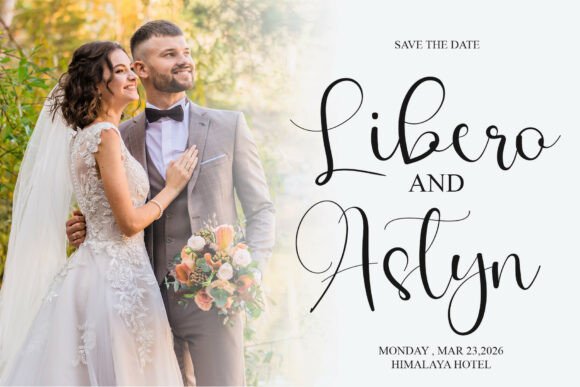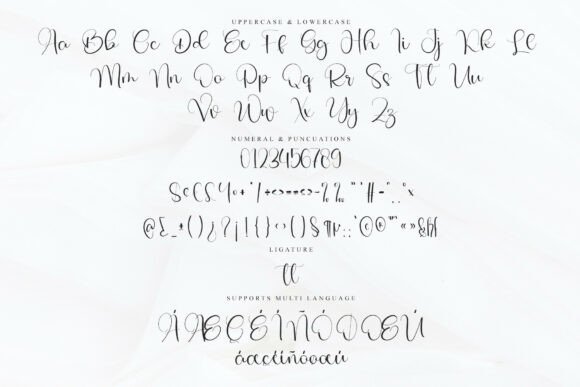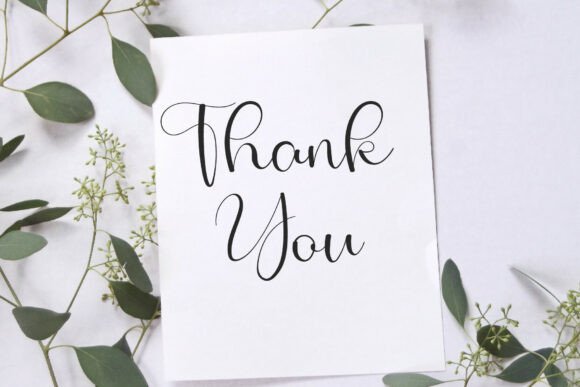
Unleash the Charm of Handwritten Elegance
Remember the feeling of receiving a beautifully handwritten letter from a loved one? The sense of warmth and personality that comes with it is hard to replicate with digital communication. But what if you could capture that same essence in your designs? Enter the Brilliant Farmhouse Font, a sophisticated script handwriting font that brings a touch of elegance and professionalism to your work.
Perfect for lifestyle branding, boutique home decor marketing, and sophisticated digital headers, the Brilliant Farmhouse Font is a valuable asset for designers looking to add a personal and high-end touch to their projects. With its vertically elongated letterforms and smooth character joins, this font is sure to make your designs stand out from the crowd.
Brilliant Farmhouse Font Key Features
- Font Family: Brilliant Farmhouse Font
- Unique Characteristics: Unique, hand-drawn design with a rustic and vintage feel, perfect for farmhouse and country-themed designs
- Number of Glyphs: 200+ glyphs, including standard Latin characters, punctuation, and special characters
Designer Review: Brilliant Farmhouse Font
I recently had the chance to work with the Brilliant Farmhouse Font, and I must say it’s a unique addition to any design project. ✨ The font’s rustic charm and vintage feel can instantly evoke a sense of nostalgia and warmth, making it perfect for farmhouse-themed designs, country-inspired branding, and even rustic wedding invitations.
Here are some of the things that work well with this font:
- ✨ Strong emphasis on hand-drawn feel: The font’s imperfections and subtle variations in letterforms give it a handmade quality that’s perfect for projects that need a personal touch.
- ✨ Versatility: The font can be used for a wide range of projects, from headings to body text, and even as a decorative element.
- ✨ Easy to read: Despite its rustic appearance, the font is surprisingly legible, making it a great choice for projects where clarity is essential.
- ⚠️ Limited font sizes: The font may not be suitable for very small or very large font sizes, as the letterforms can become distorted or difficult to read.
- ⚠️ May not be suitable for formal designs: While the font is perfect for rustic or country-inspired designs, it may not be the best choice for formal or professional projects.
Overall, the Brilliant Farmhouse Font is a great addition to any designer’s toolkit, but it’s essential to use it judiciously and consider the project’s requirements before choosing this font.
Practical Application Guide for Brilliant Farmhouse Font
To get the most out of Brilliant Farmhouse Font, try the following:
- Use the font in combination with distressed textures or watercolor effects for a unique look.
- Pair the font with bold, bright colors to create a striking contrast.
Brilliant Farmhouse Font is perfect for:
- Rustic or vintage-themed designs.
- Country or farmhouse-inspired projects.
- Outdoor or nature-themed designs.
Alternatives to Brilliant Farmhouse Font
Great Vibes Font is a beautiful, modern script font perfect for adding a touch of elegance to your designs. It’s ideal for use in branding, invitations, and other creative projects where a unique and eye-catching font is needed.
Compared to Brilliant Farmhouse Font, Great Vibes Font has a more refined and sophisticated look, making it a great choice for high-end designs. While Brilliant Farmhouse Font has a more rustic and homespun feel, Great Vibes Font is more versatile and can be used in a wider range of contexts.
Lato Font is a clean and modern sans-serif font that’s perfect for use in body text and headings. It’s highly legible and works well in a variety of contexts, from corporate branding to digital products.
Compared to Brilliant Farmhouse Font, Lato Font is much more straightforward and lacks the ornate details of the farmhouse font. While Brilliant Farmhouse Font is ideal for use in creative projects where a unique and rustic feel is needed, Lato Font is a better choice for projects where a clean and modern look is required.